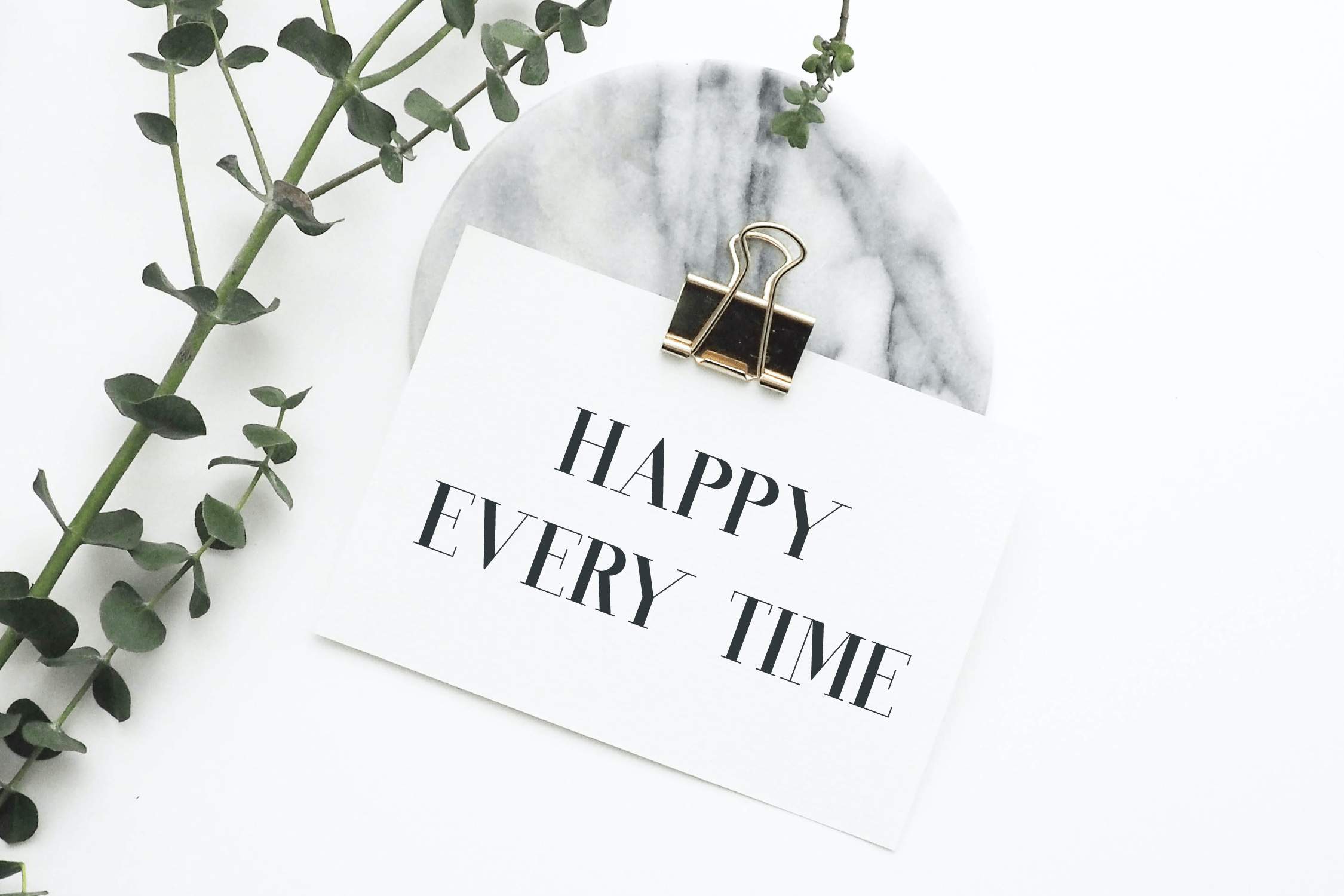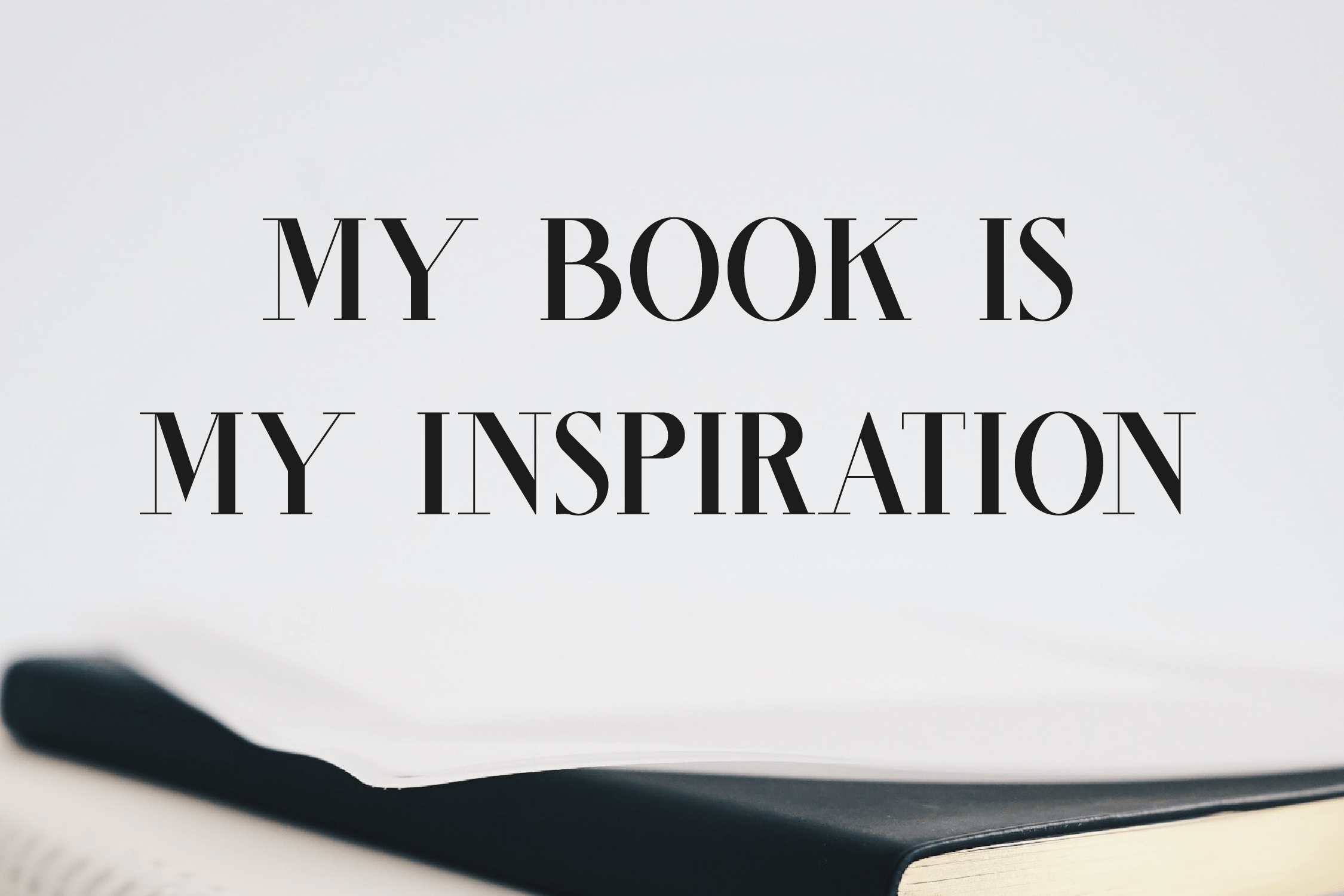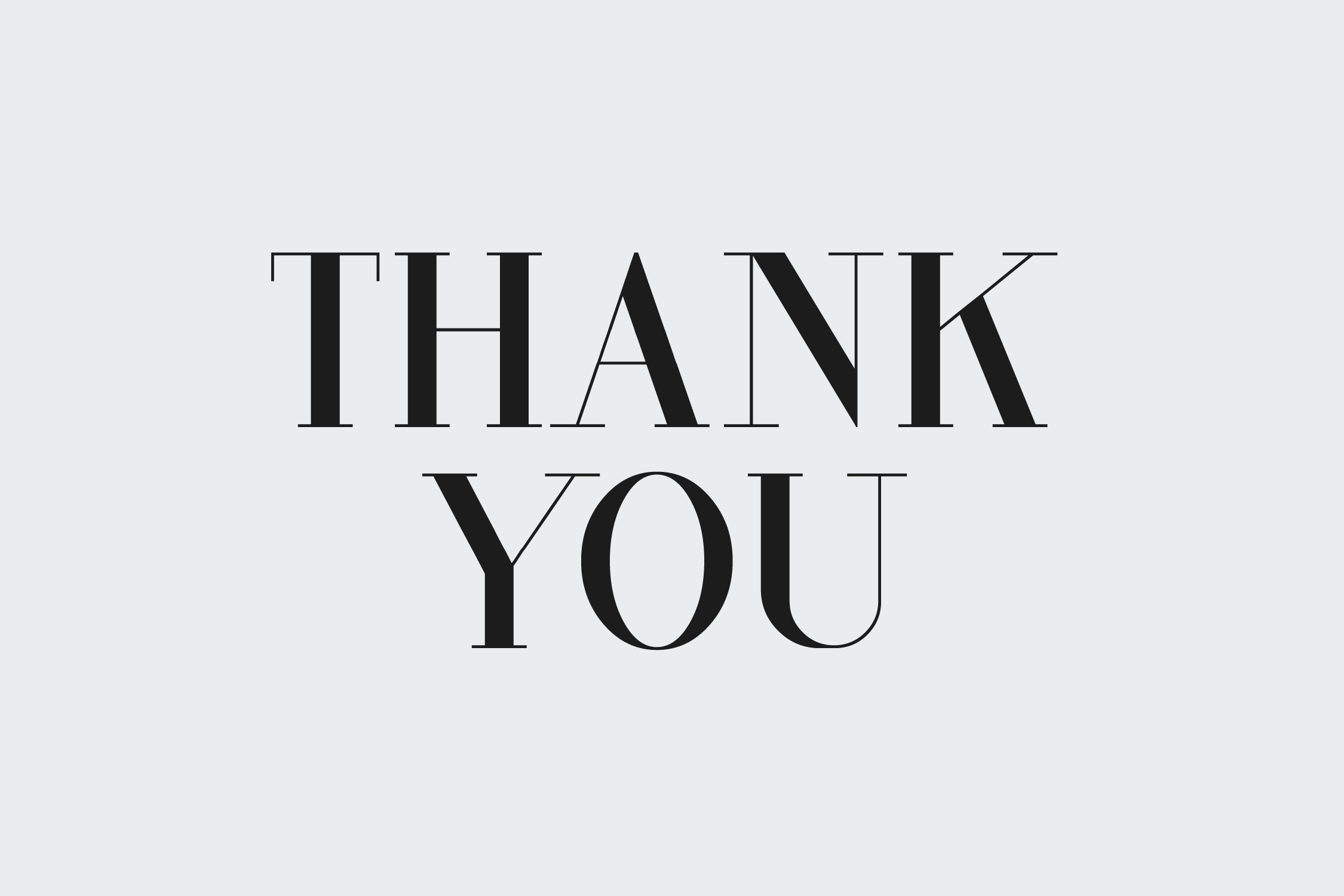
Cintary Modern Serif Font is a modern serif typeface that has a unique modern style & look. This typeface is perfect for elegant & luxurious logos, book or movie title designs, fashion brands, magazines, clothing, fonts, quotes and more.